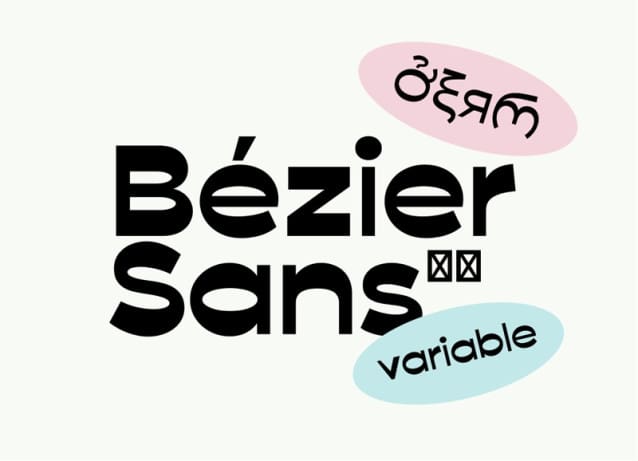
Bézier Sans Font, is a sans serif stunning when combined or separately. This sans serif font style is legible and stunningly designed.
| Designer Name: | Alexander Pravdin |
| Classification: | Sans Serif Fonts |